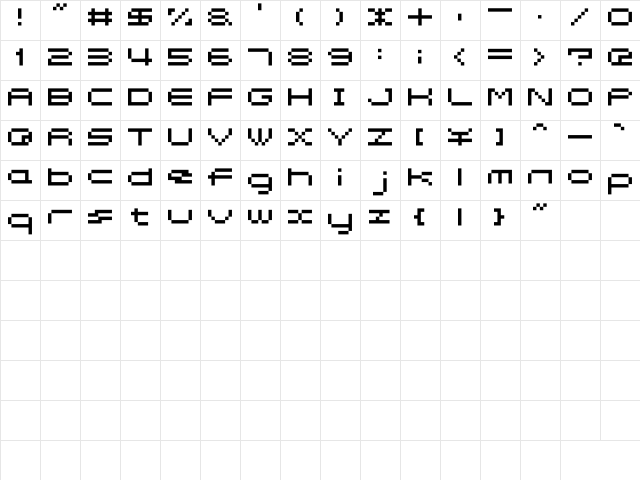
somybmp04_7 Regular Font Preview
somybmp04_7 Regular
Design Context for somybmp04_7 Typeface
somybmp04_7 offers clean, dependable letterforms without strong stylistic allegiance, making it a practical choice for designers who need flexibility.